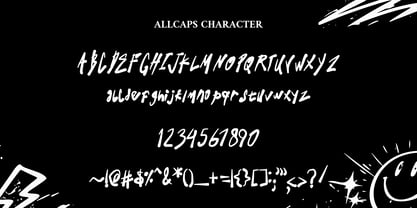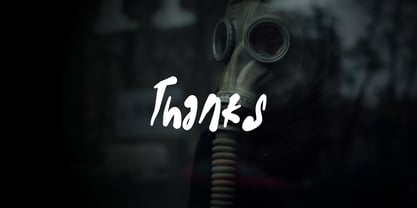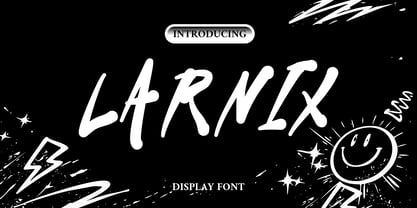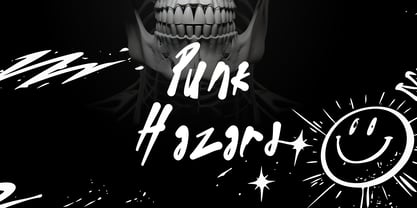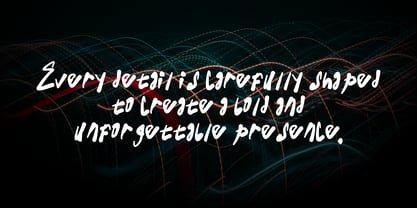
Larnix
La familia tipográfica Larnix fue diseñada por Mei Suseno y publicada por Mei Suseno. Larnix contiene 1 estilos. Más información sobre esta familia
This font features a bold handwritten brush style with smooth flowing strokes and a strong expressive character. Its dynamic lettering creates a modern, energetic, and youthful look that instantly stands out in any design. The natural brush texture gives the typeface an authentic handmade feel while maintaining clean readability and stylish movement.
Perfect for streetwear branding, music posters, social media content, fashion campaigns, album covers, logos, and creative projects, this font delivers an urban and artistic vibe with a touch of rebellious personality. The combination of sharp curves and freestyle brush details makes it ideal for eye-catching headlines and impactful visual compositions.